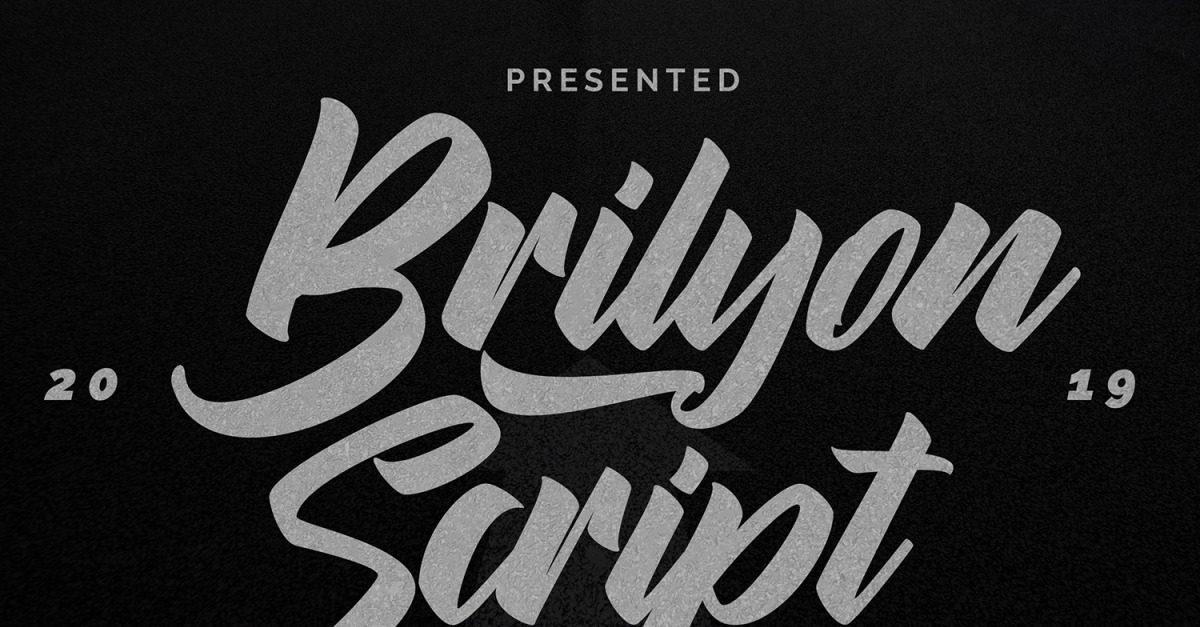
Brylion Script | Unique Authentic Font
**Brylion Script | Unique Authentic Font** with a calligraphy style, So beautiful on invitation like greeting cards, branding materials, business cards, quotes, posters, and more!